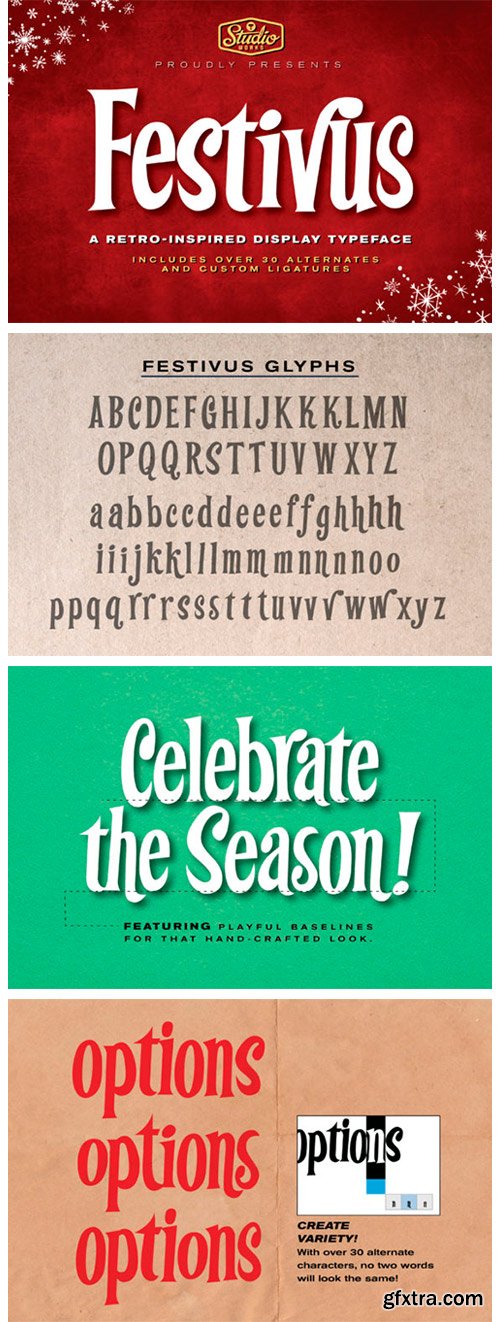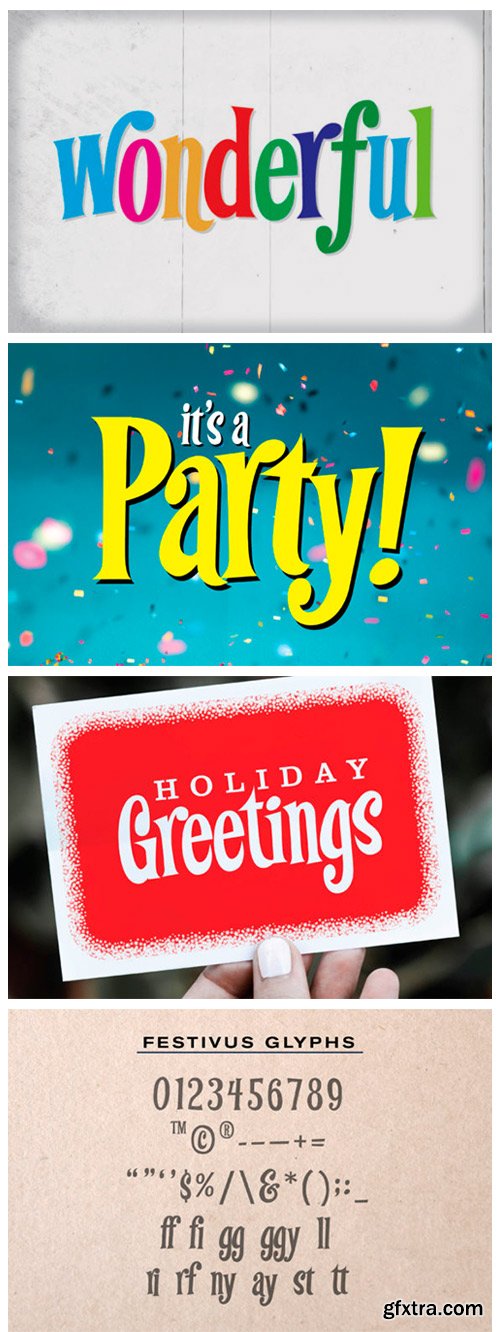
Festivus Font
Festivus is a decidedly fun-loving display font with a familiar hand-lettered retro aesthetic. Expertly kerned and carefully composed, this warm and friendly typeface is sure to be the life of the party. Inspired by the creative stylings of animation masters Rankin Bass, Festivus is most suitable as a decorative display font.